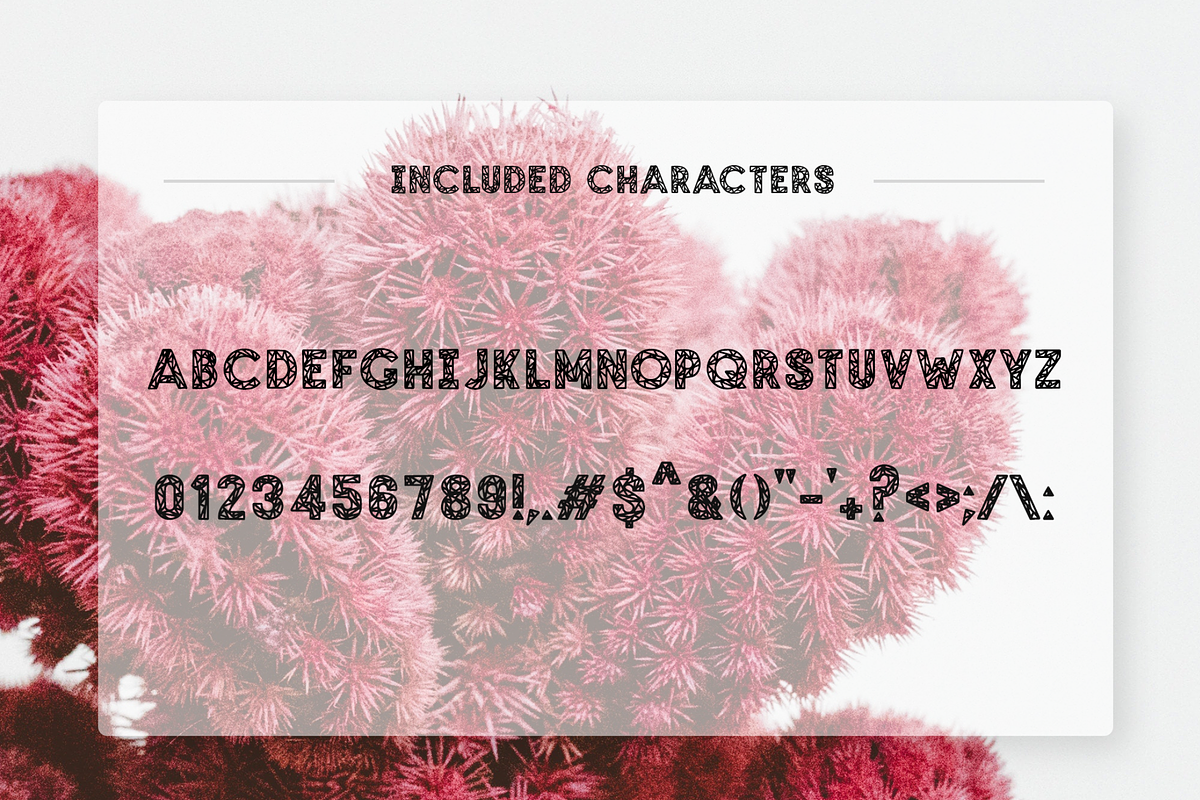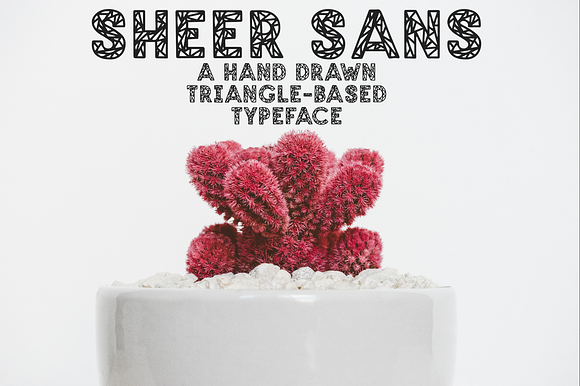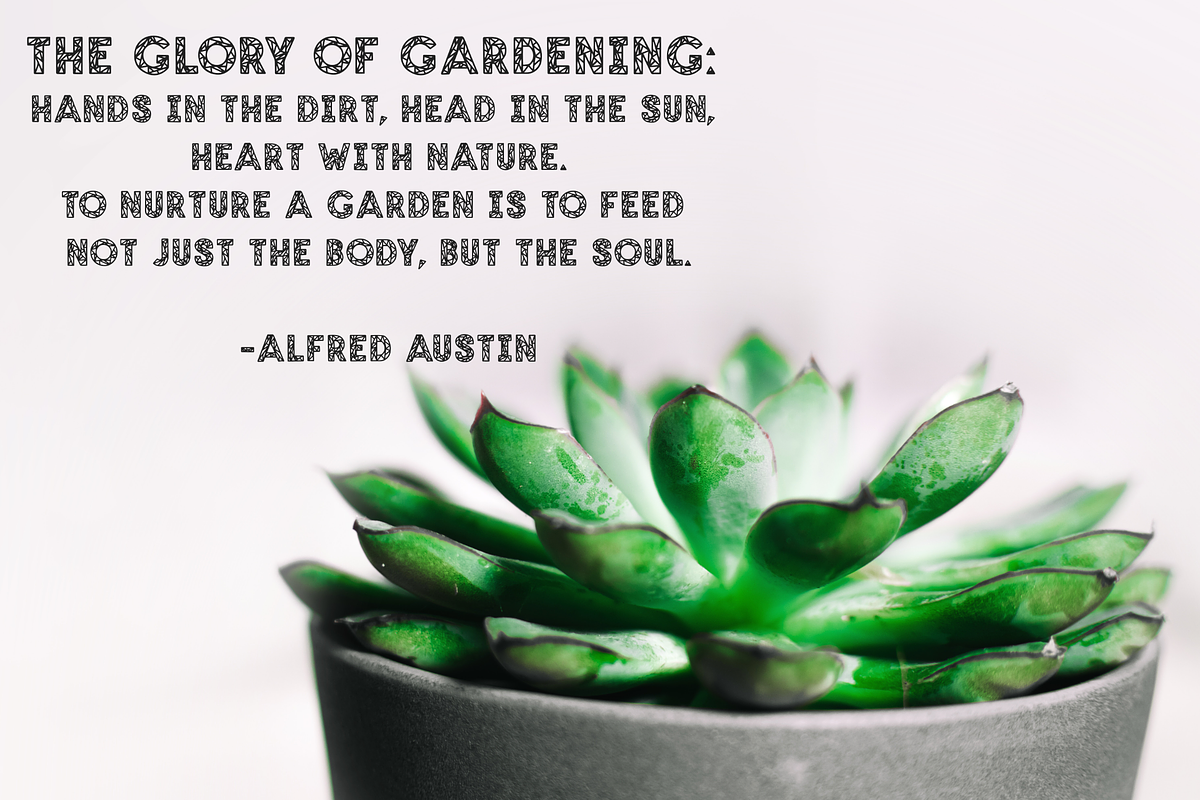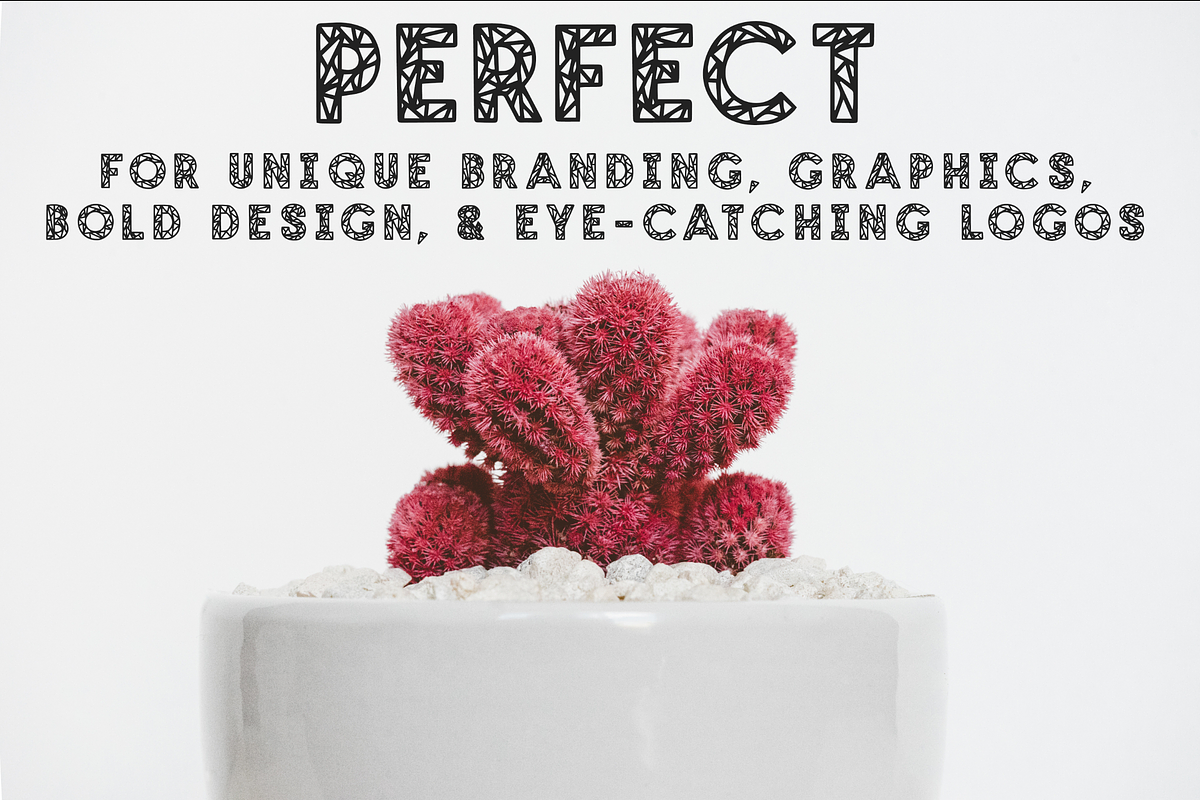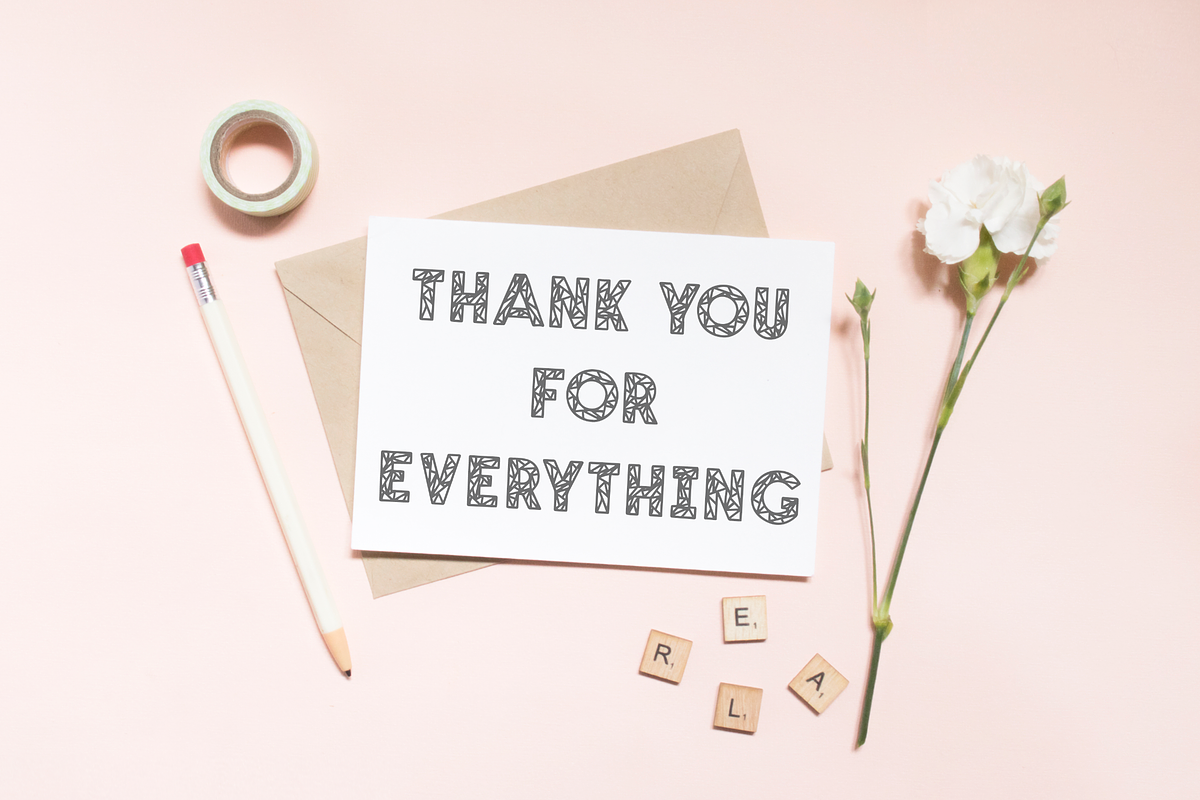
SHEER SANS Hand Drawn Typeface
Scribbly, made up of triangles, and sans-serif. Does it even get any better?
Includes full capitals, numerals, and a range of punctuation. Don't hesitate to reach out if you need something specific!